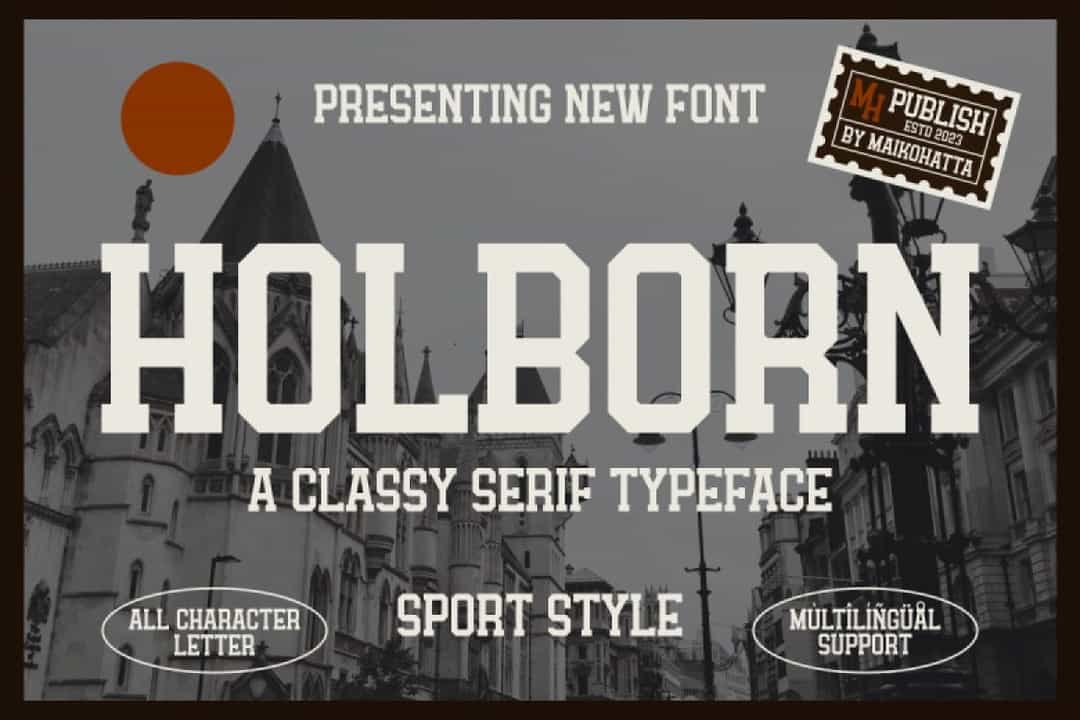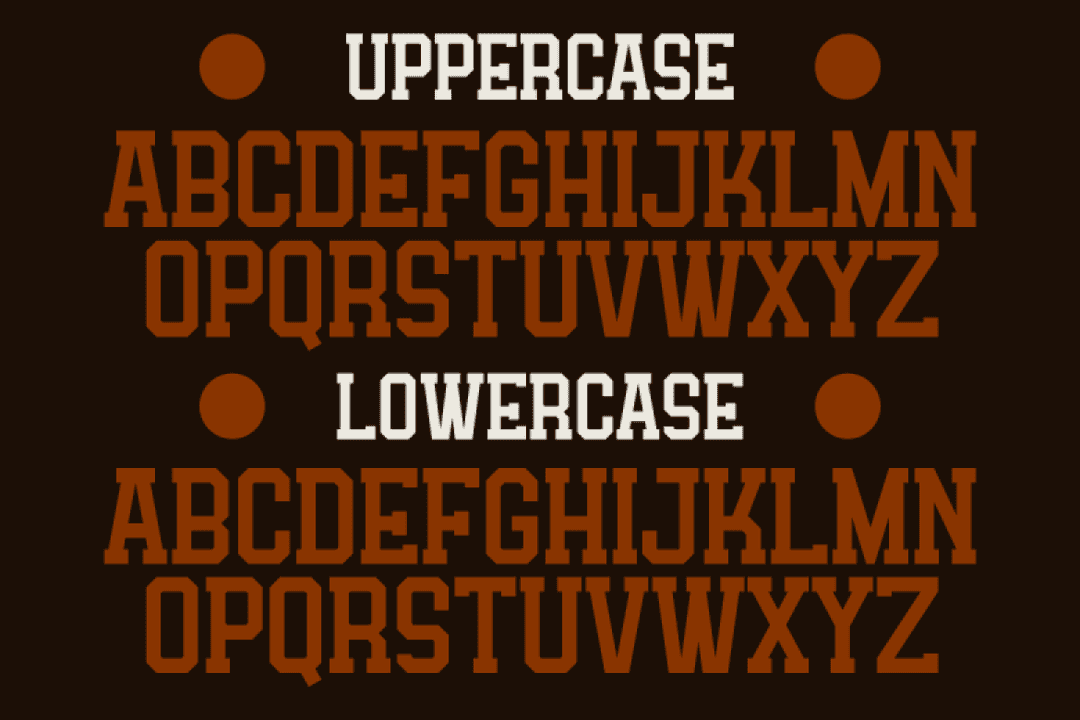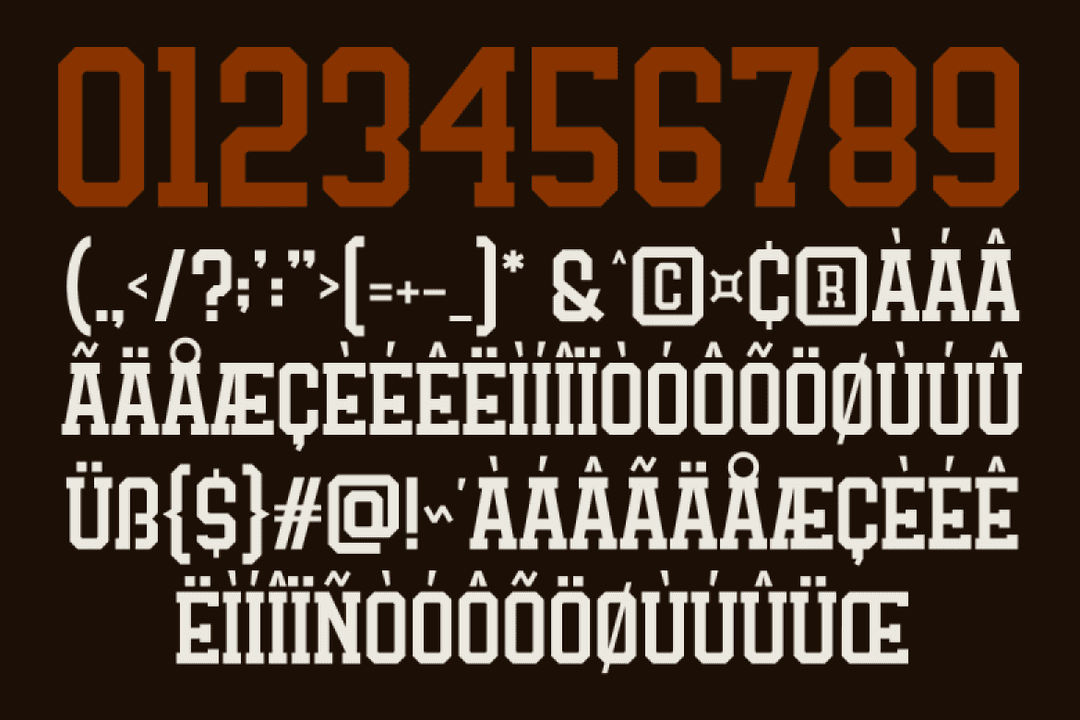
Holborn Font was designed to capture the dynamic energy, spirit and resilience often associated with physical activity and sports. Holborn can be used to create brand identities for teams of athletes, sports corporations and major sporting events.